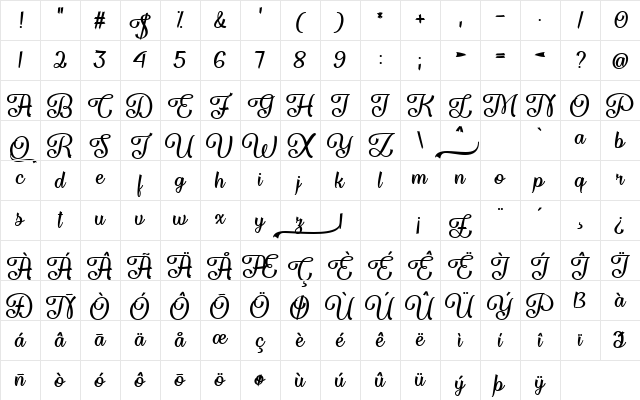
Flame Fetish Regular
Design Context for Flame Fetish
Flame Fetish is a composed and adaptable typeface that performs quietly and consistently across a wide range of design contexts.